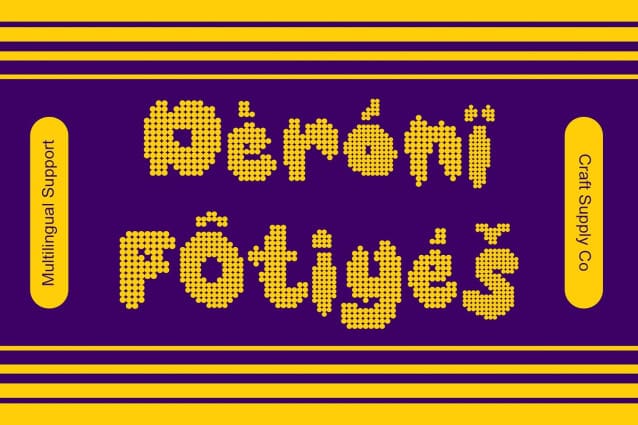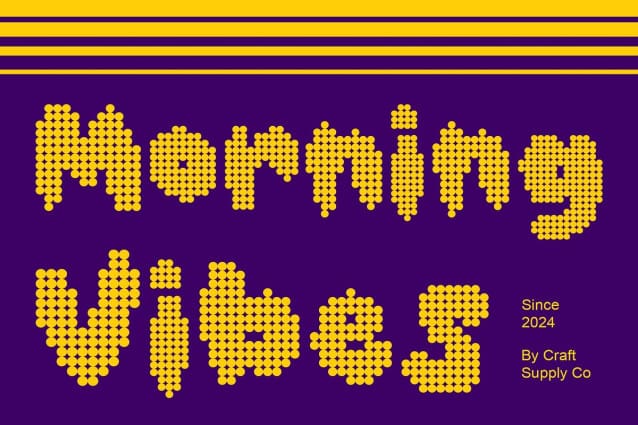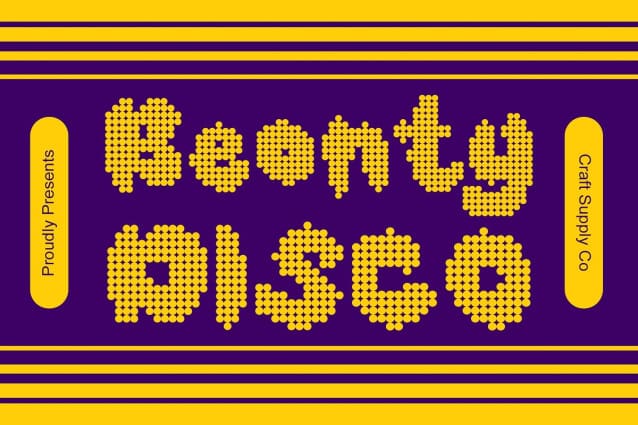
Beonty Disco Font
Beonty Disco Font: Groovy Bubble Display Font. Funky Bubble Design Beonty Disco features a playful bubble-shaped design, infused with a vibrant dot-style effect reminiscent of the disco era. Its lively appearance adds a touch of retro charm to any display project.
Disco-inspired Vibes Drawing inspiration from the disco era, This font exudes energetic and dynamic vibes, making it perfect for creating eye-catching displays that evoke a sense of nostalgia and fun.
Perfect for Display Needs Tailored for display purposes, This font shines in various contexts, from event posters to digital advertisements. Its bold, bubbly style ensures that your message grabs attention and stands out.
Versatile Application Beyond its disco-inspired appearance, This font offers versatility in application. Whether used in branding, packaging, or social media graphics, its funky bubble design brings a playful yet professional touch to your projects.
Get Groovy! This font is your go-to font for injecting a dose of disco-inspired fun into your designs. With its bubbly shape and lively dot-style effect, it’s perfect for creating vibrant displays that capture attention and spread joy. Let This font take your projects to the next level of grooviness.